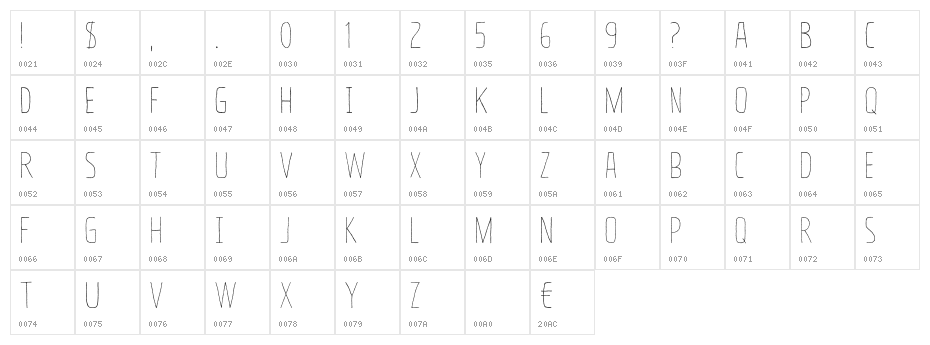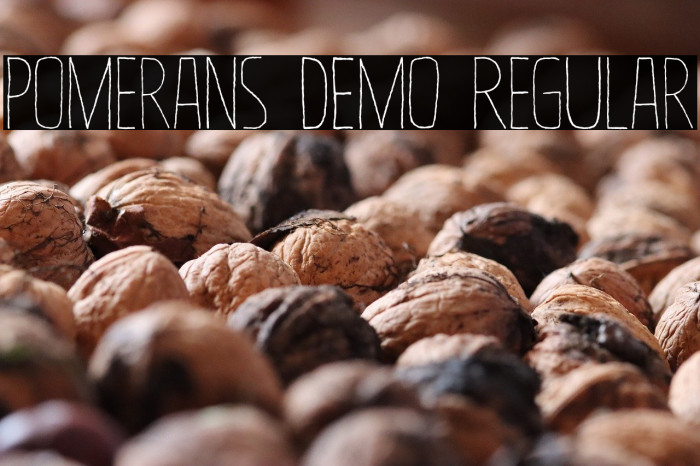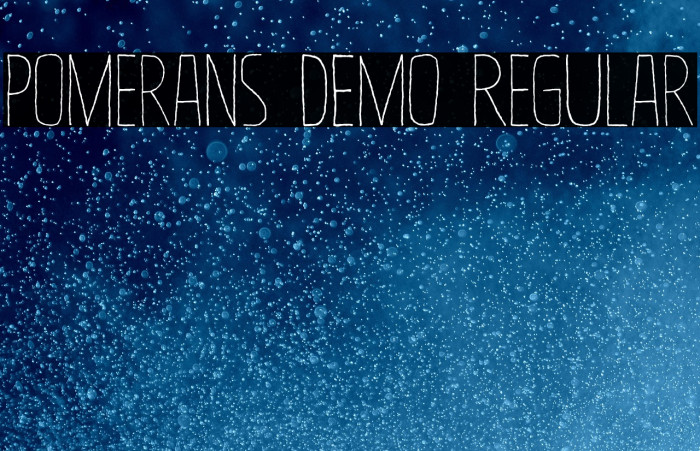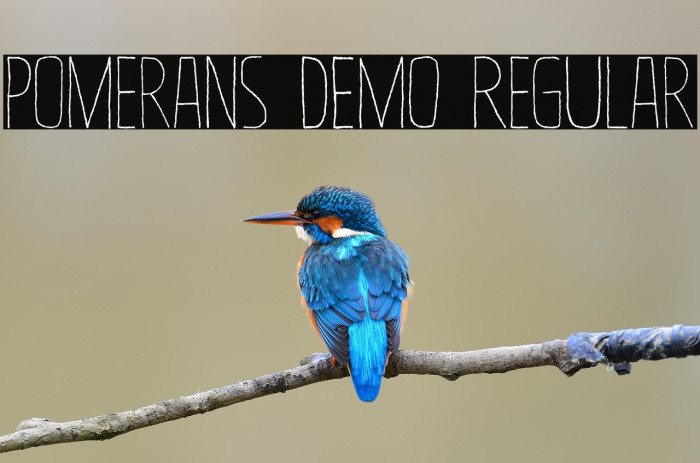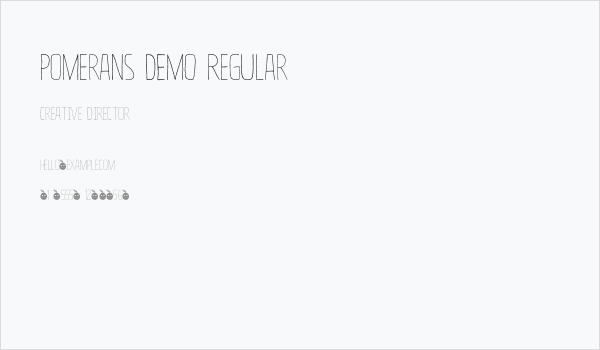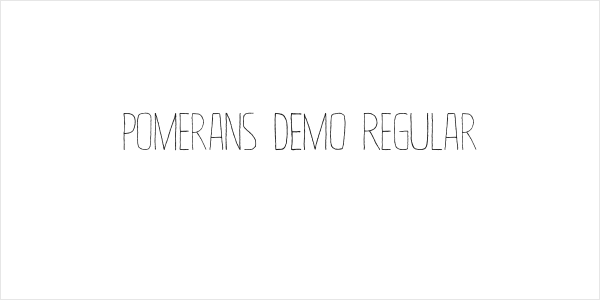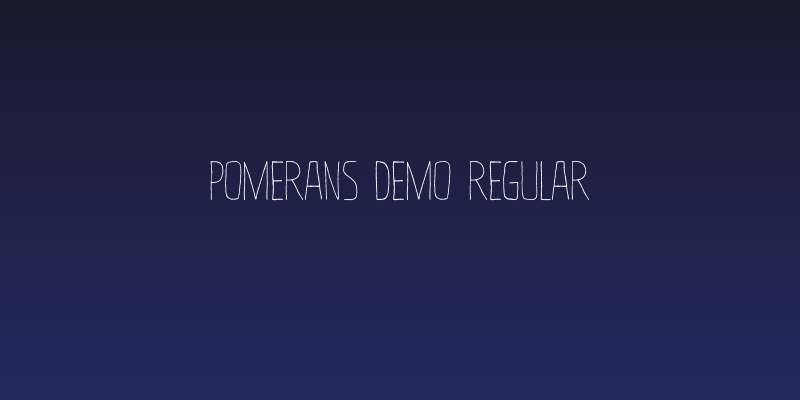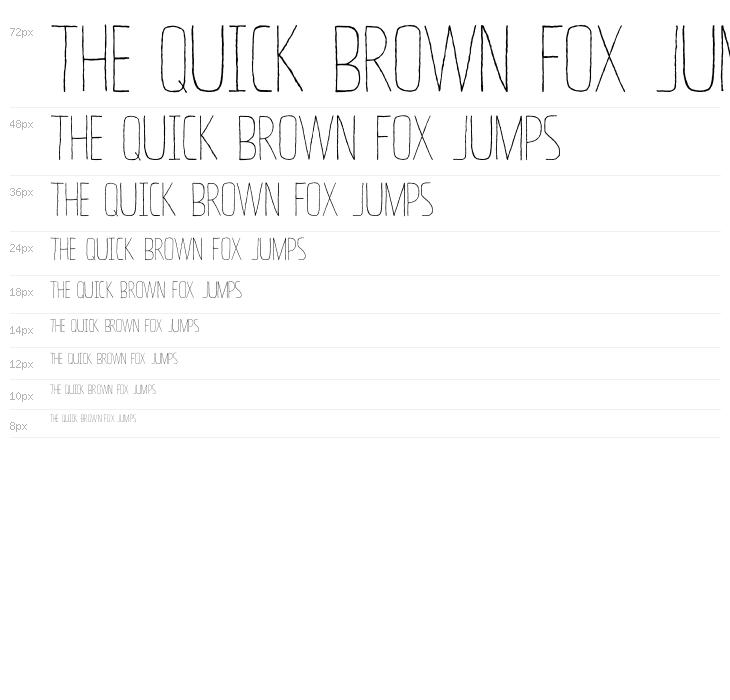
Pomerans DEMO Regular Font
Pomerans DEMO Regular Description
A tall, narrow, hand-drawn sans-serif font with irregular, sketch-like strokes and playful, whimsical character; includes unique illustrated glyphs.
| Overall Style | Decorative, Playful, Hand-drawn |
| Use Case | Logos, Headlines, Posters, Informal Designs |
| Proposed Projects | ChildrenΓ’β¬β’s books, playful branding, greeting cards, posters, informal invitations. |